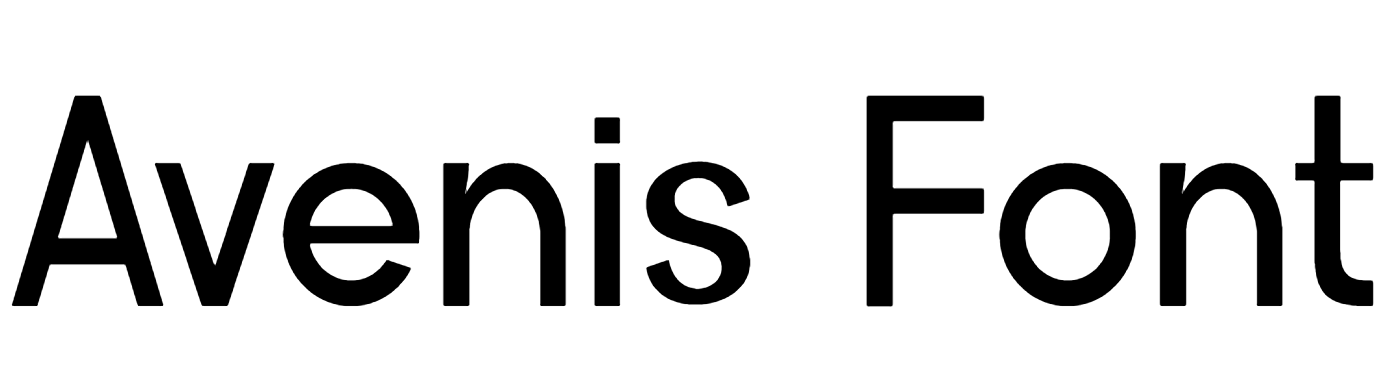
Avenis
Avenis is a sans serif font created by Maikohatta. It has a clean, no-nonsense look that fits modern brands and websites. You get four styles in one free ZIP, and the preview above lets you test each one before you download.
- Designer: Maikohatta
- Font styles: 4 (Regular, Semilight, Light and Semibold)
- Weights: Light (300) to SemiBold (600)
- Glyphs: 206 in the Regular style
- Extra characters: 7 copy-and-paste alternates (Private Use Area)
With complete upper and lowercase letters and all ten digits, Avenis is ready for real wording, not just a single headline. Common punctuation such as &, !, ? and @ is included as well. It also has the accented letters you need for Spanish, French, Portuguese and Italian.
Designers usually reach for fonts like Avenis when they're making websites, app screens and clean logos. It works for headings and body text alike. If the download has several weights, use a heavier one for titles and a lighter one for paragraphs. Because the family has more than one style, you can mix them in a single design for headings, subheadings and highlights.
Yes. Avenis includes the accented letters needed for Spanish, French, Portuguese and Italian, so it works for more than just English.